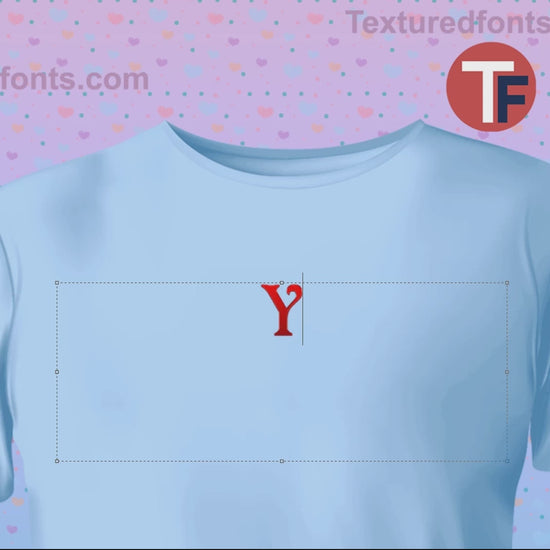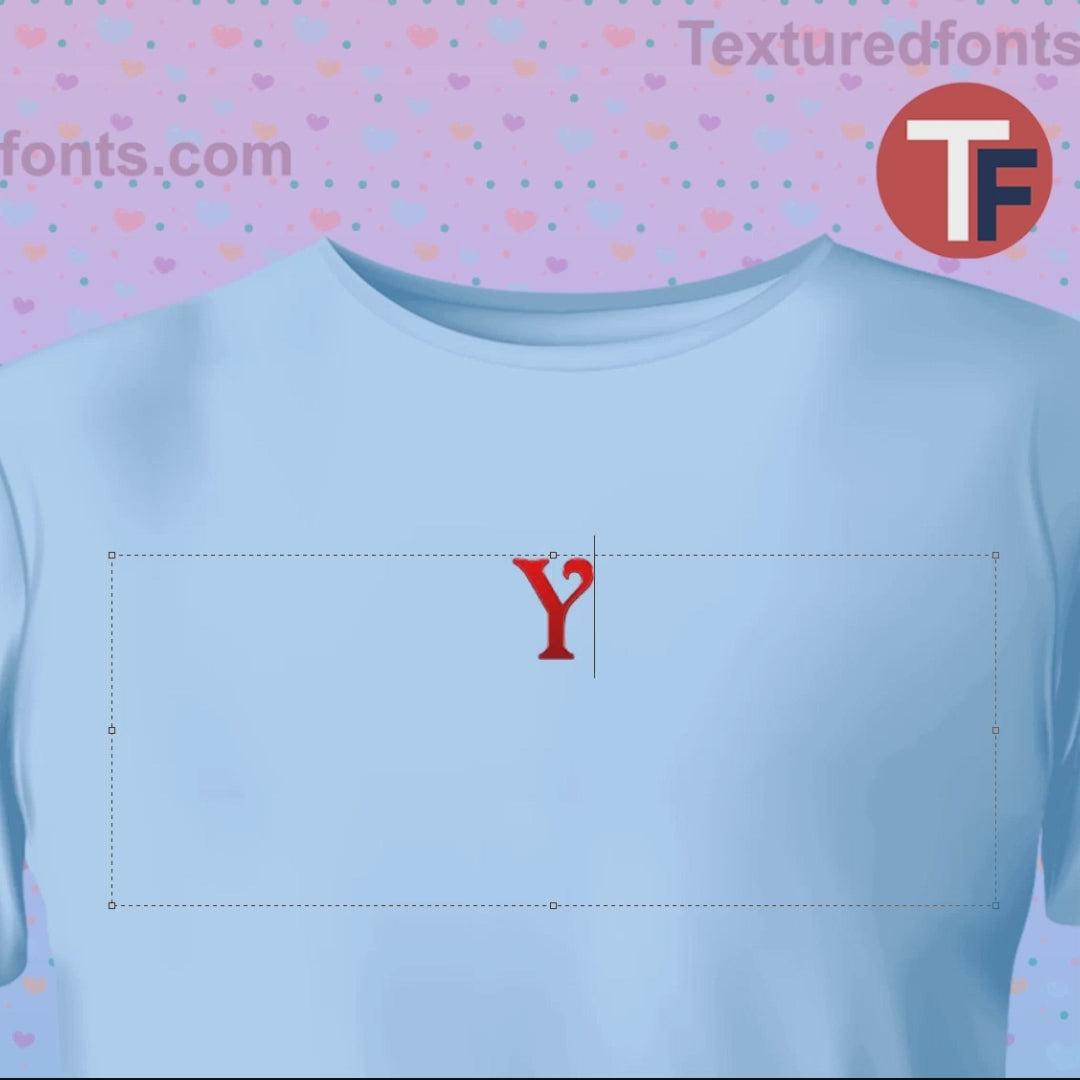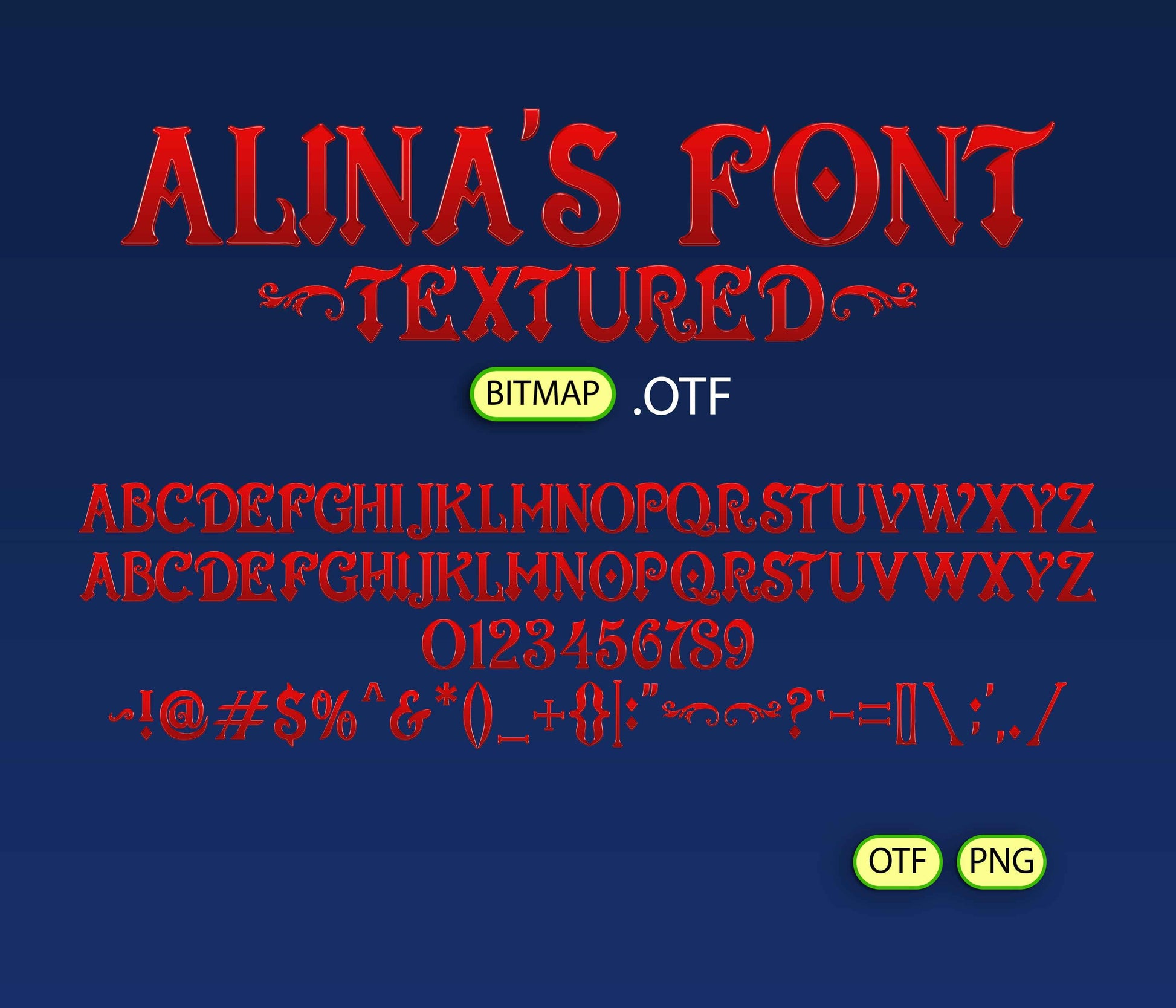
Nocturne Elegance Font Textured
Embrace the Gothic Elegance with the Nocturne Elegance Font
Delve into the dark and mysterious world of Nocturne Elegance with our specially designed font, inspired by the gothic romance and drama of a beloved manga and anime series. Ideal for fans, graphic designers, and content creators, this font captures the essence of the series' elegant and mystical atmosphere, making it perfect for projects that require a touch of nocturnal beauty and intrigue.
Our Nocturne Elegance-inspired font features sharp, angular contours mixed with flowing curves, reflecting the dual nature of the series' themes—both the elegance of its aristocratic characters and the sharp tension of its darker plots. The full character set includes uppercase and lowercase letters, numbers, and special symbols, enabling a wide range of applications:
To accommodate diverse design needs and ensure maximum usability, our Nocturne Elegance-inspired font includes both textured and non-textured variants. The non-textured version is particularly useful, ensuring compatibility with all types of software, including Canva. This feature allows for easy integration into any project, enhancing its accessibility and ease of use for designers at all levels.
Our Nocturne Elegance font not only pays tribute to the series but also empowers you to bring its gothic and romantic allure into your creative endeavors. With its striking style and flexible application, this font allows you to communicate with the visual sophistication and emotional depth that define the series. Ready to add a dose of dark elegance to your projects? This font is your key to crafting visually captivating and thematically rich designs.